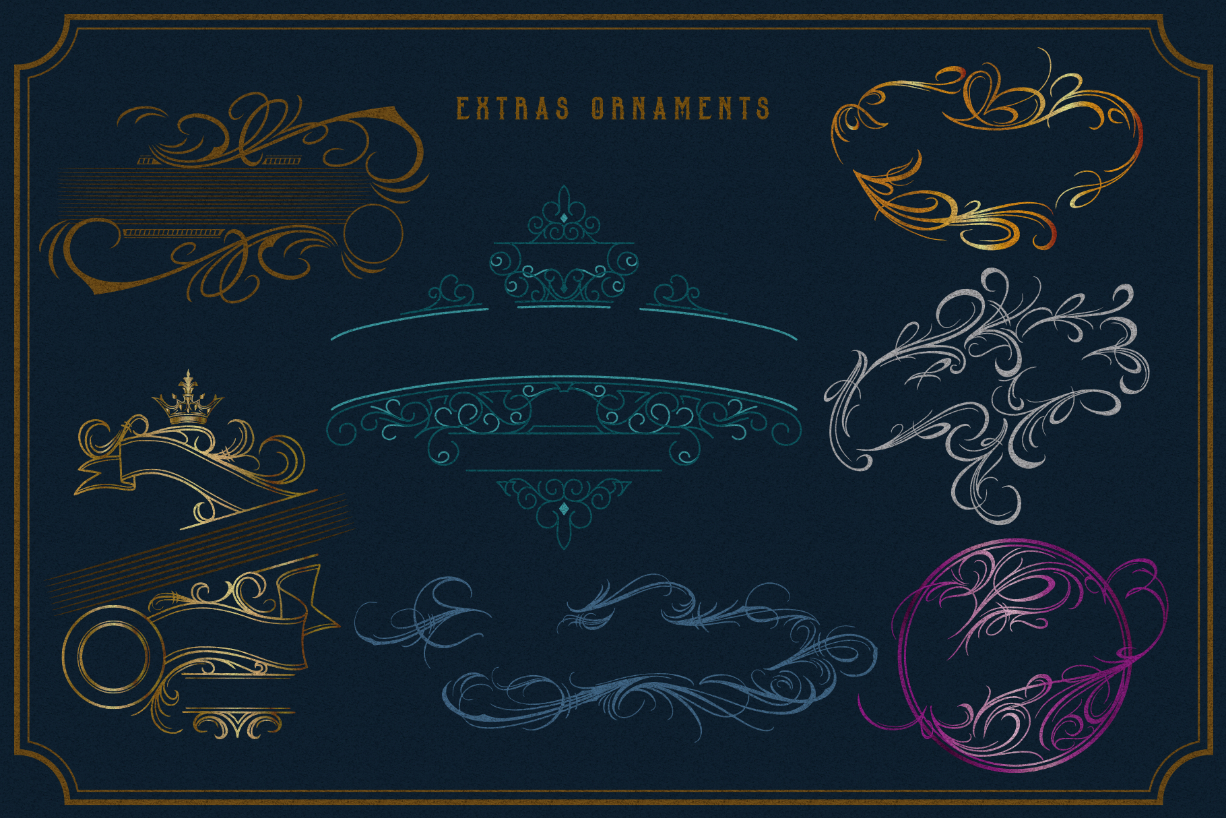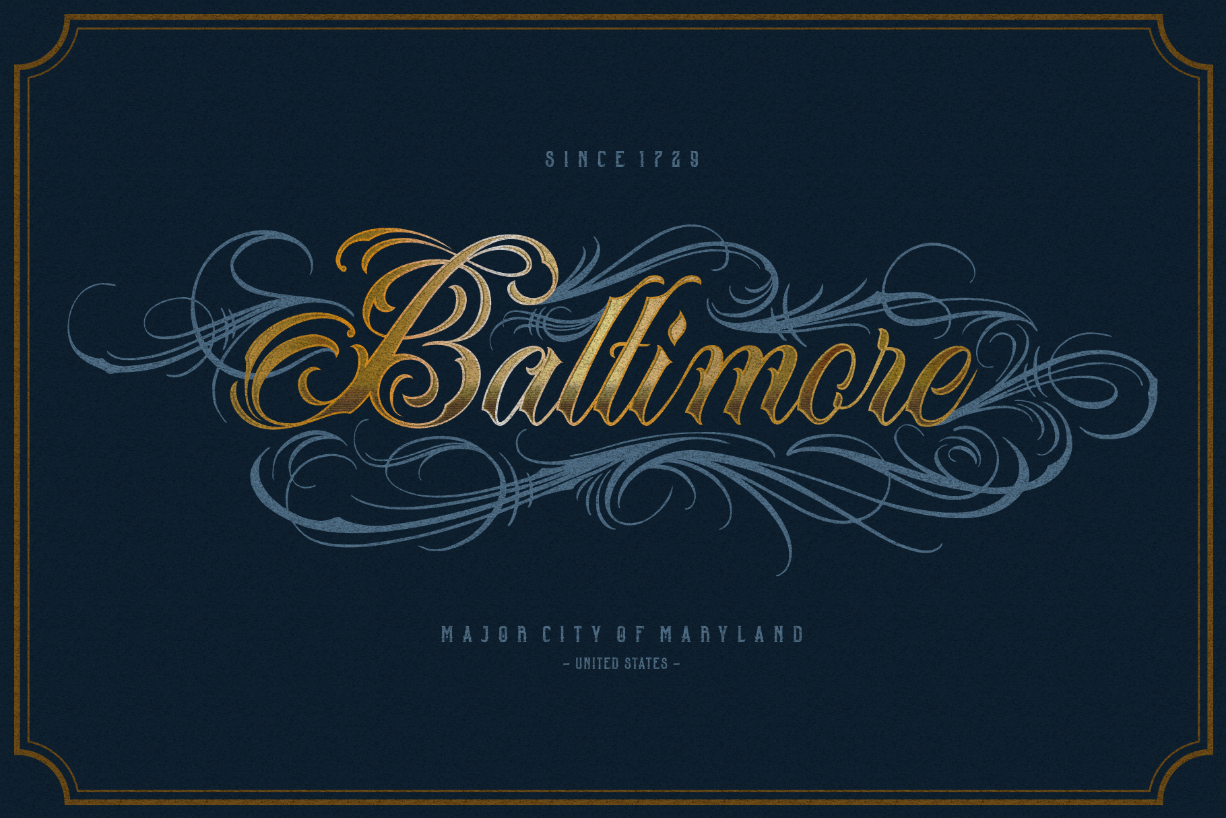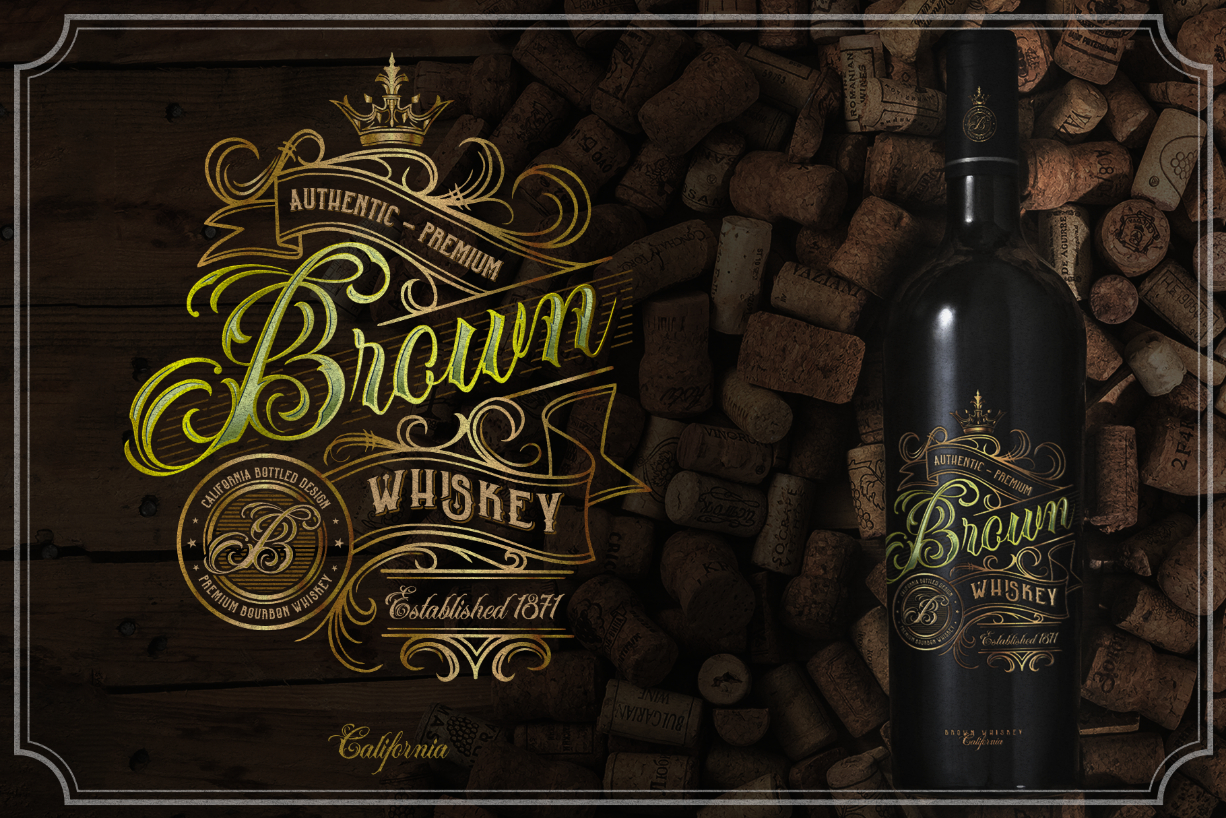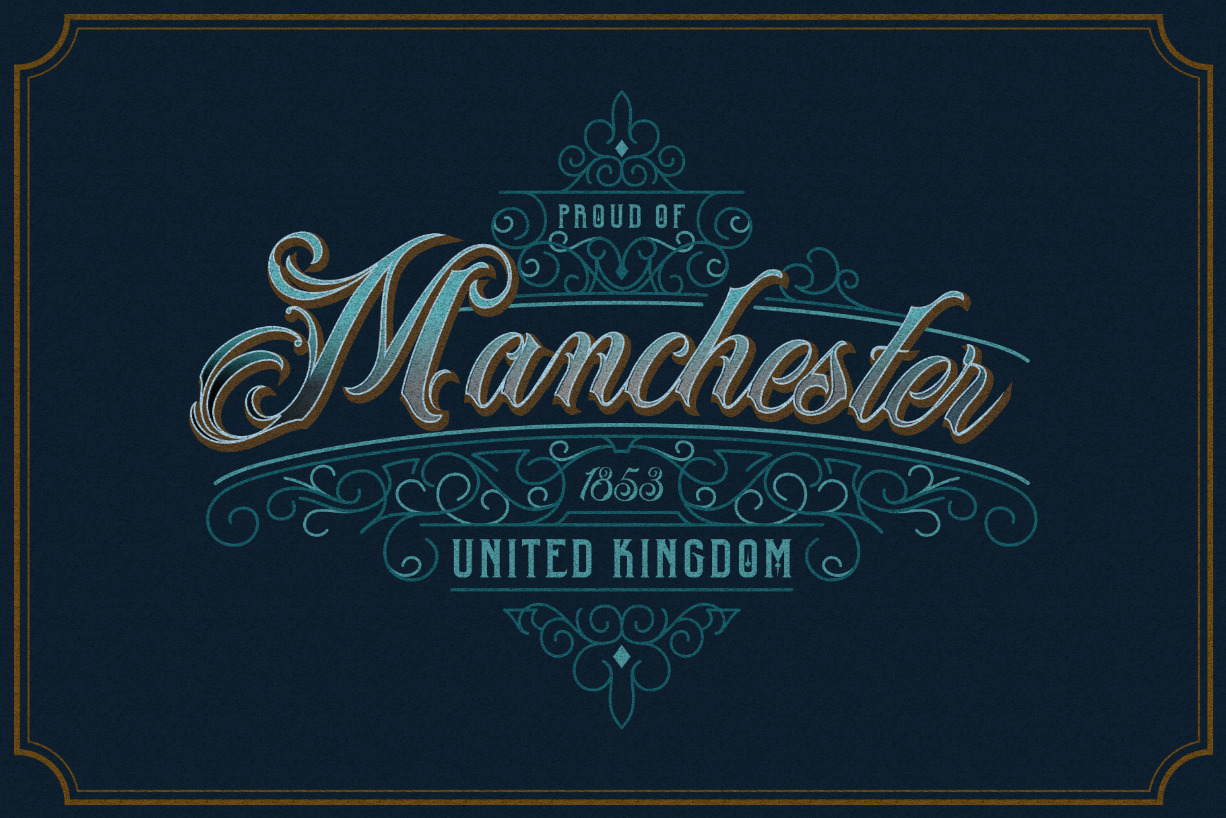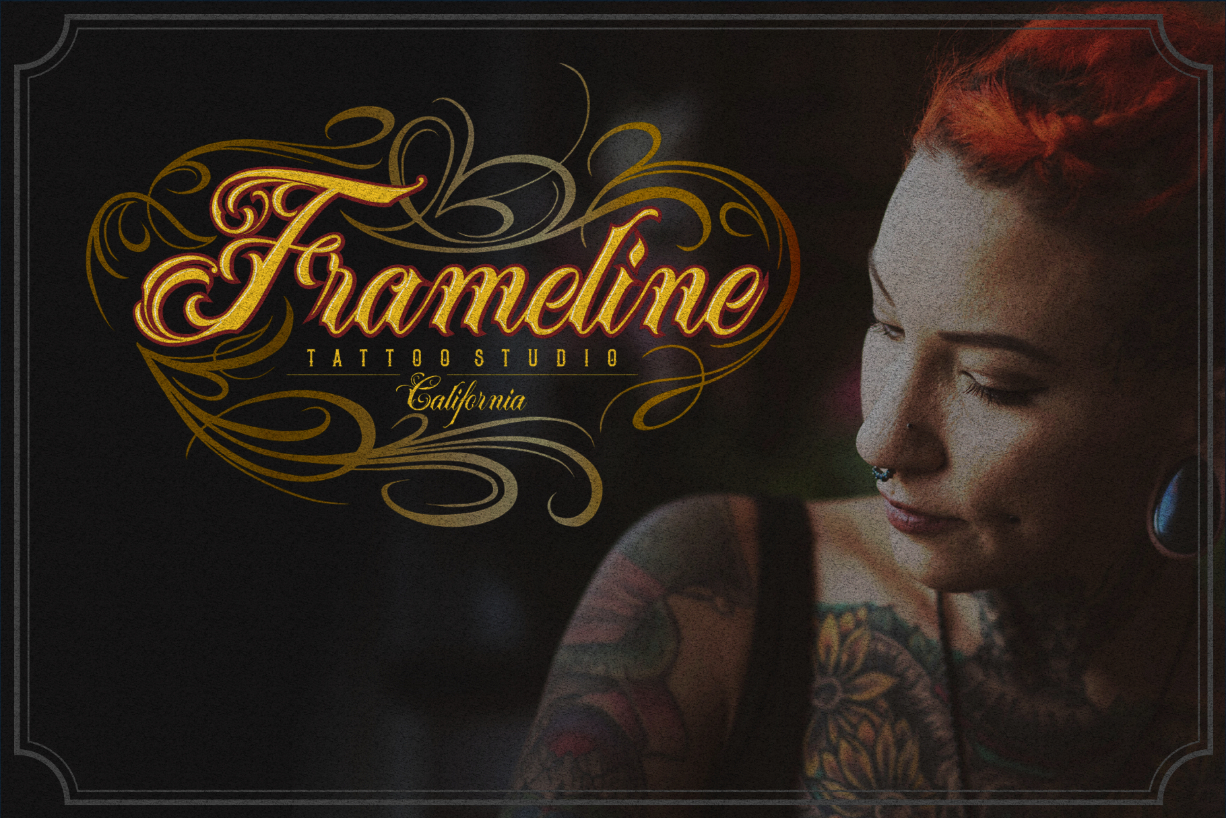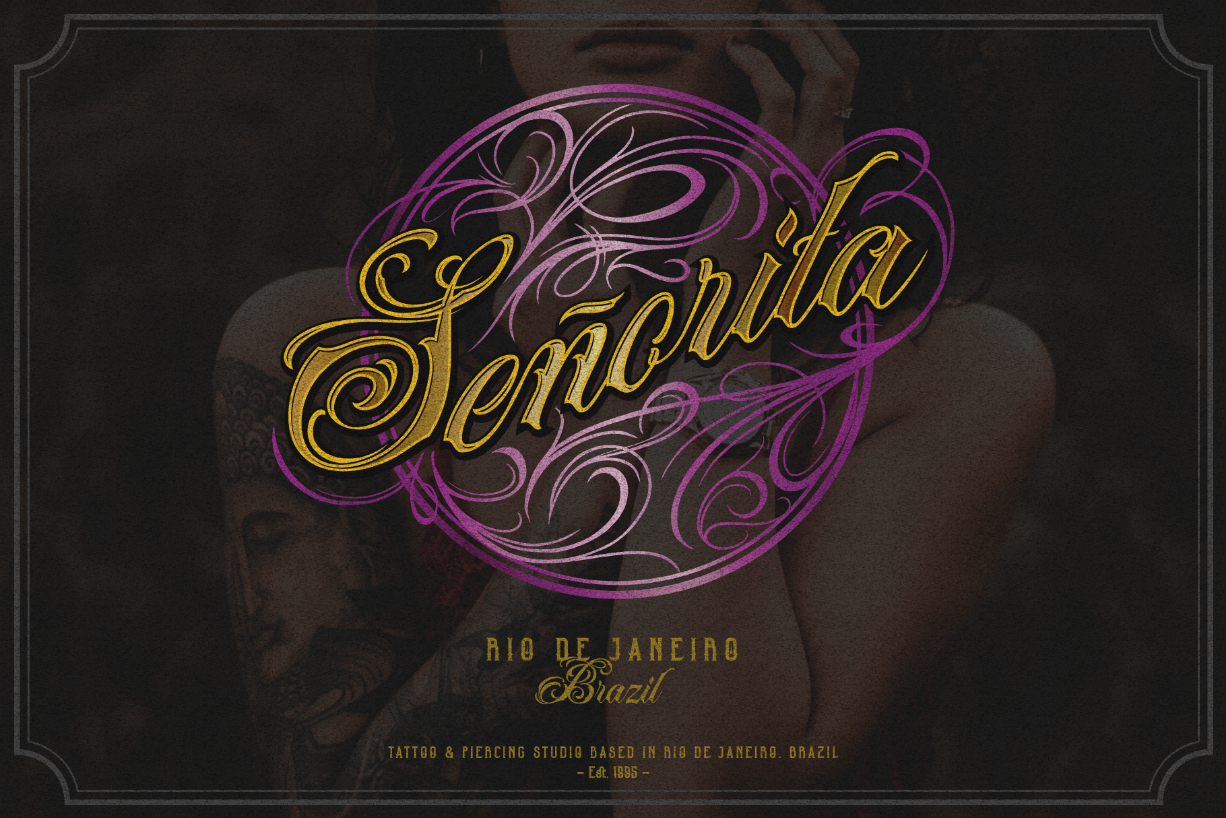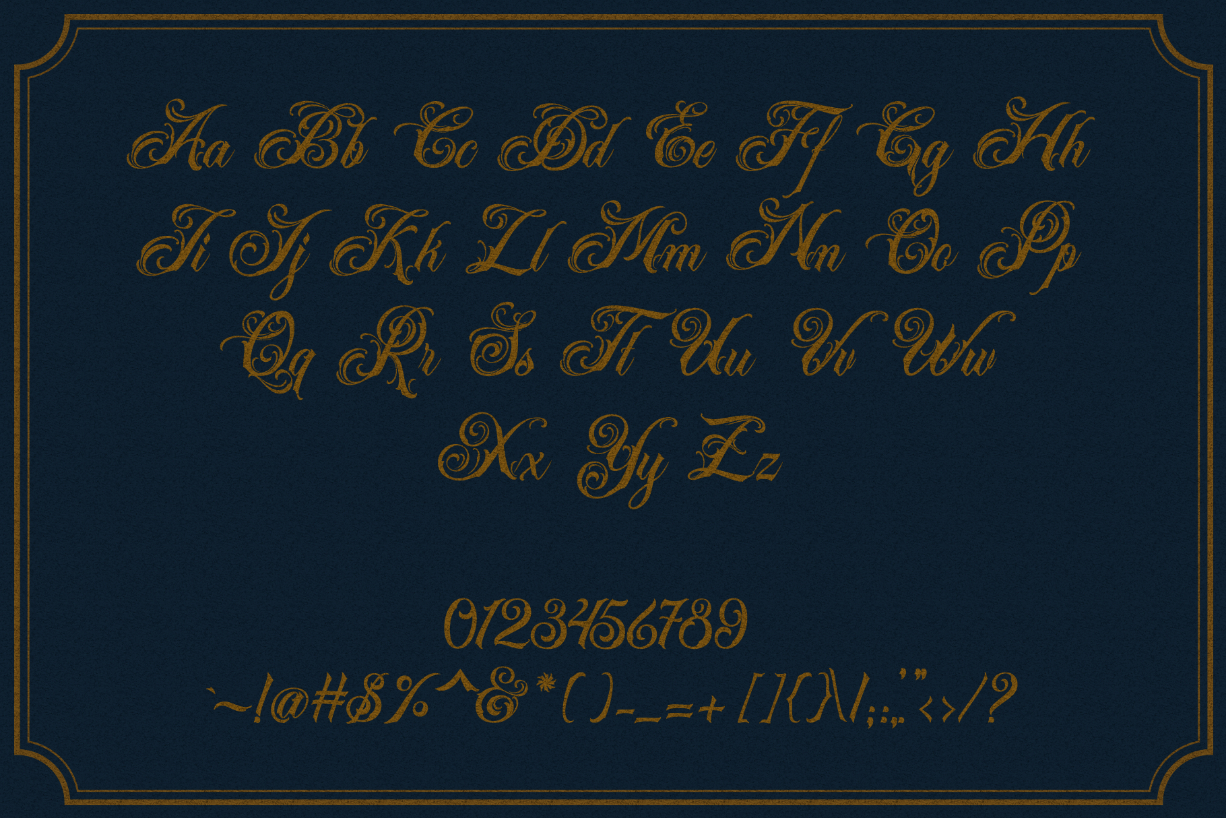
Acuentre Font
About Acuentre Font
Acuentre is a stunning blackletter font with a vintage twist. Get inspired by its bold swashes and stunning ornaments!